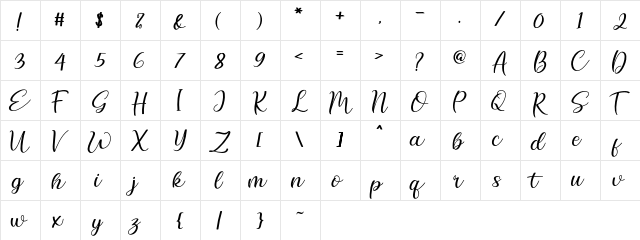
celia Regular
| Foundry | inkcreativeart |
| Designer | ink creative |
celia is a composed and adaptable typeface that performs quietly and consistently across a wide range of design contexts.